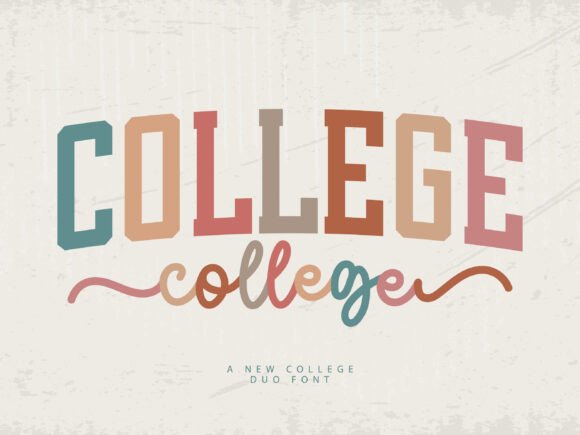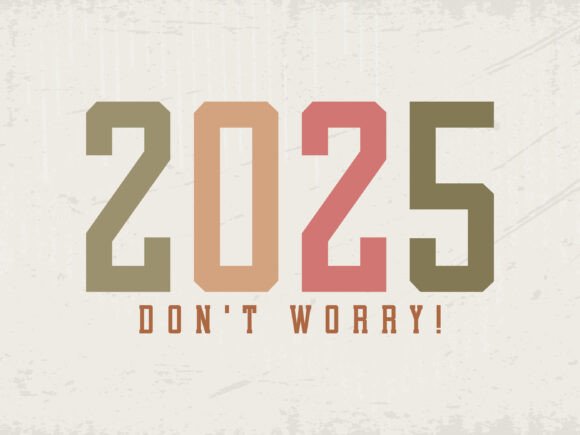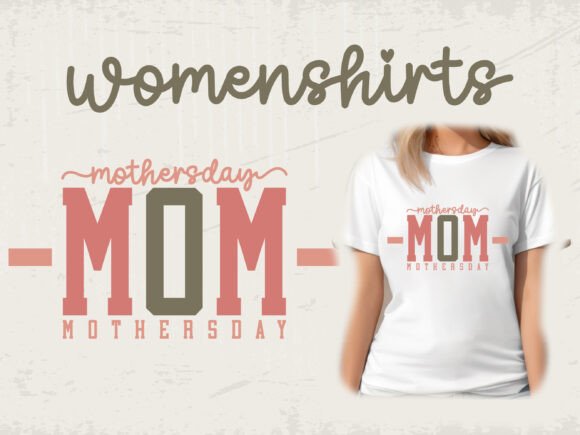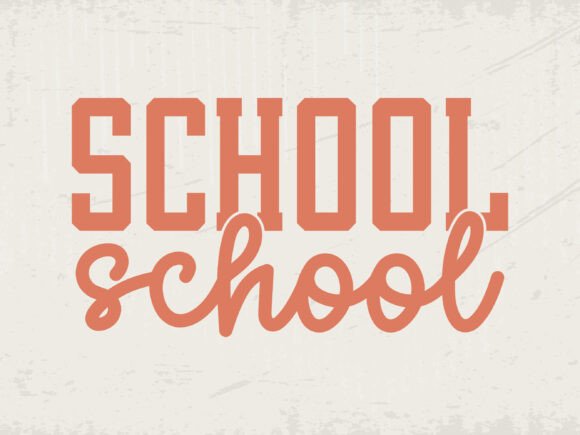
College Duo Font
About the College Duo Font
Make a bold statement with College Duo Font, a powerful and memorable font. College Duo is made for any professional project branding, a T-Shirt, logo or more. Perfect for sports-themed design projects or web graphics. Serif font includes a full set of display sporty uppercase and script lowercase letters for duo style, numerals, punctuation and other symbols.
College Duo’s bold, sporty aesthetic makes it ideal for headlines, logos, and short impactful text on posters or packaging. Its strong uppercase forms excel in branding for athletic apparel or energetic businesses. However, the script lowercase and limited character set make it unsuitable for body copy or long-form text, including website content or UI elements.
Pairing College Duo with a clean sans-serif like Open Sans for body text provides excellent contrast and readability. For a more playful feel, consider a rounded geometric sans-serif such as Circular Std. If a more sophisticated look is desired, a classic serif like Garamond can add elegance and balance the sporty energy of College Duo.
The font projects a confident, energetic personality, well-suited to brands that convey strength, dynamism, and a youthful spirit. Avoid using it where a refined or delicate aesthetic is required.
College Duo Font Usage Examples
College Duo Font Example